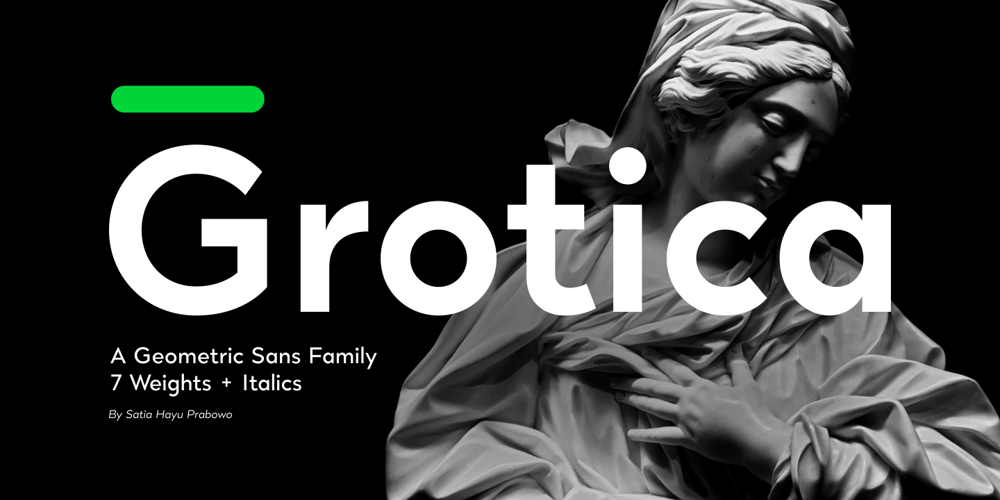
Grotica Font Family was designed by Satia Hayu Prabowo and published by Runsell Type. Grotica contains 14 styles and family package options. Grotica is a versatile geometric sans serif contains 7 weights from Thin to Bold. IIt’s inspired by the beautiful logotype on old labels and by exploring the Retroica font we’ve created in 2020. This font is suitable for movies, TV, advertising, packaging, logos, posters, music, branding, posters and so on with a modern design style. With over 600 glyphs per style, Grotica supports around 150 languages in Latin and Cyrillic script.Grotica OpenType Features including alternate glyphs, fractions, contextual alternates, oldstyle and lining (proportional and tabular) numerals, numerators/denominators, superiors/inferiors, and a variety of symbols.